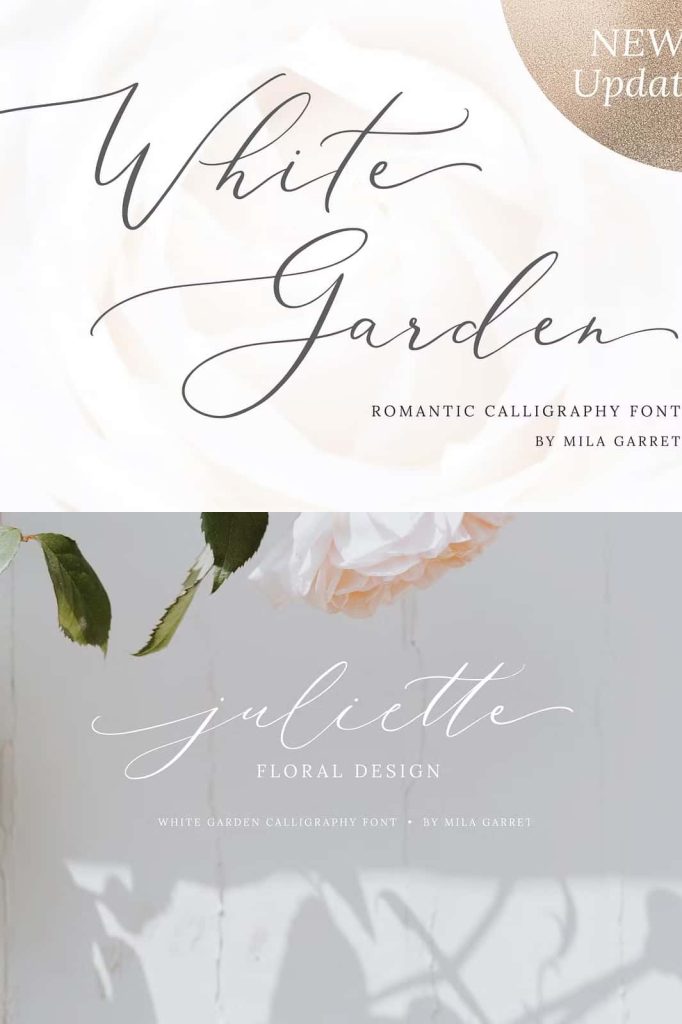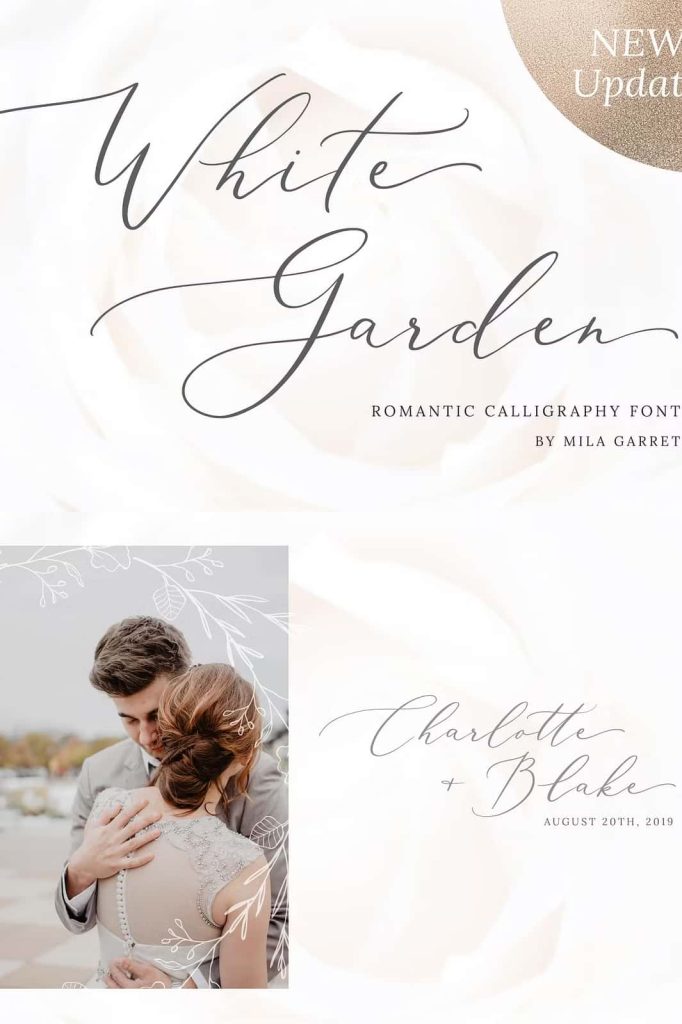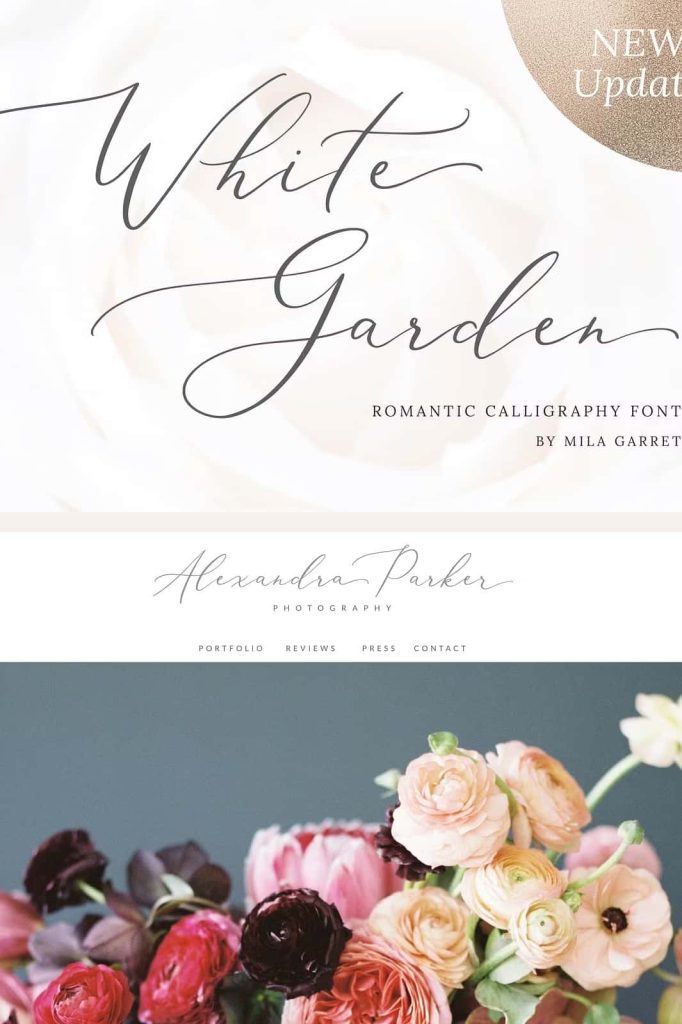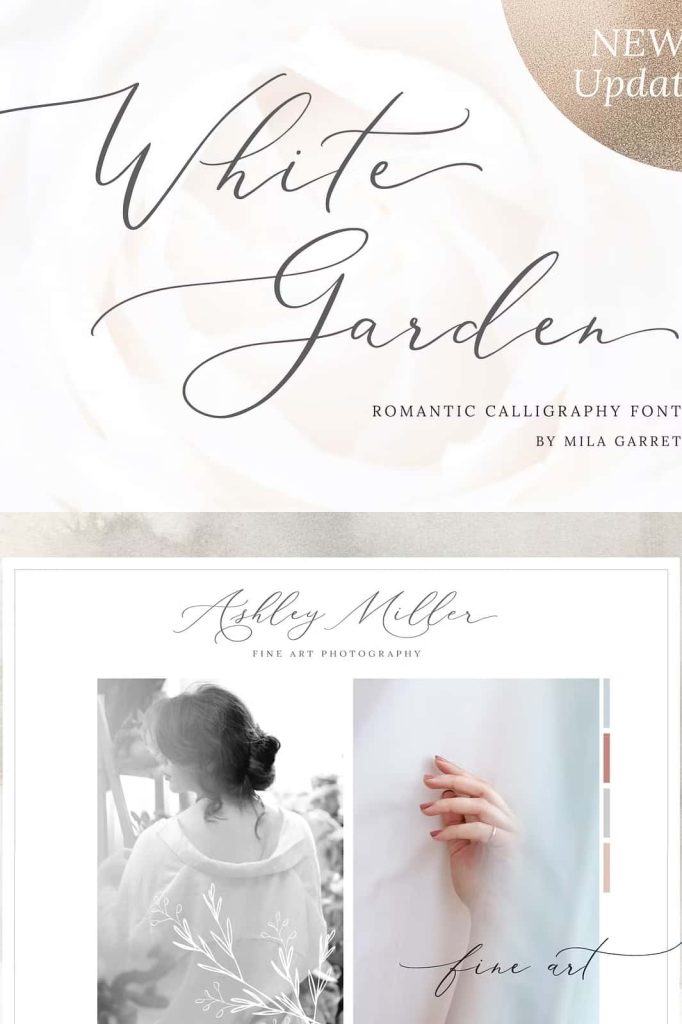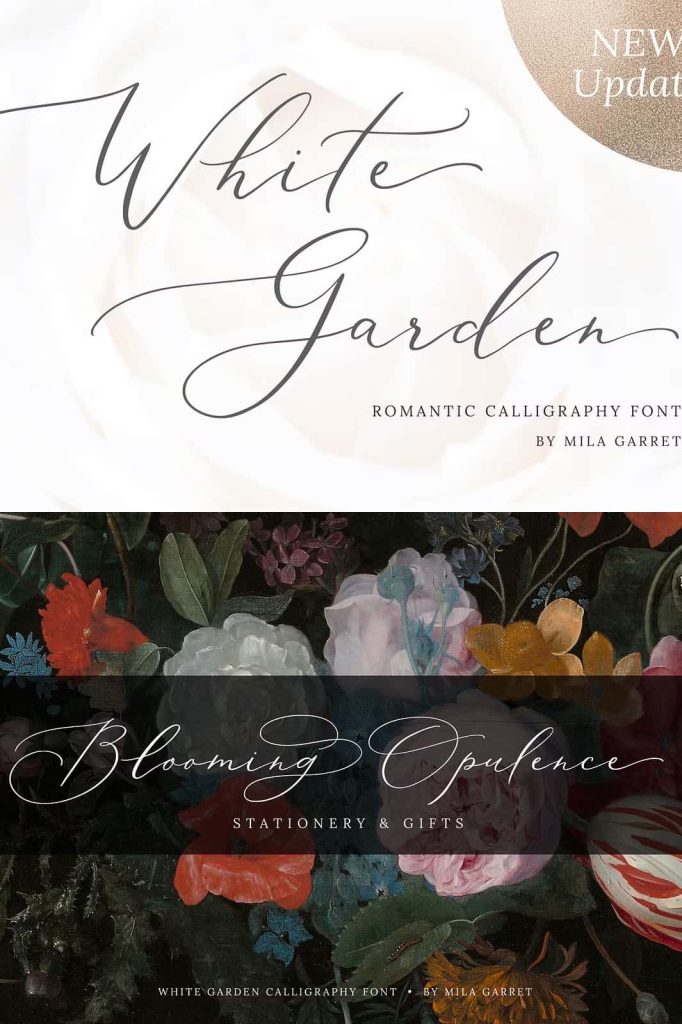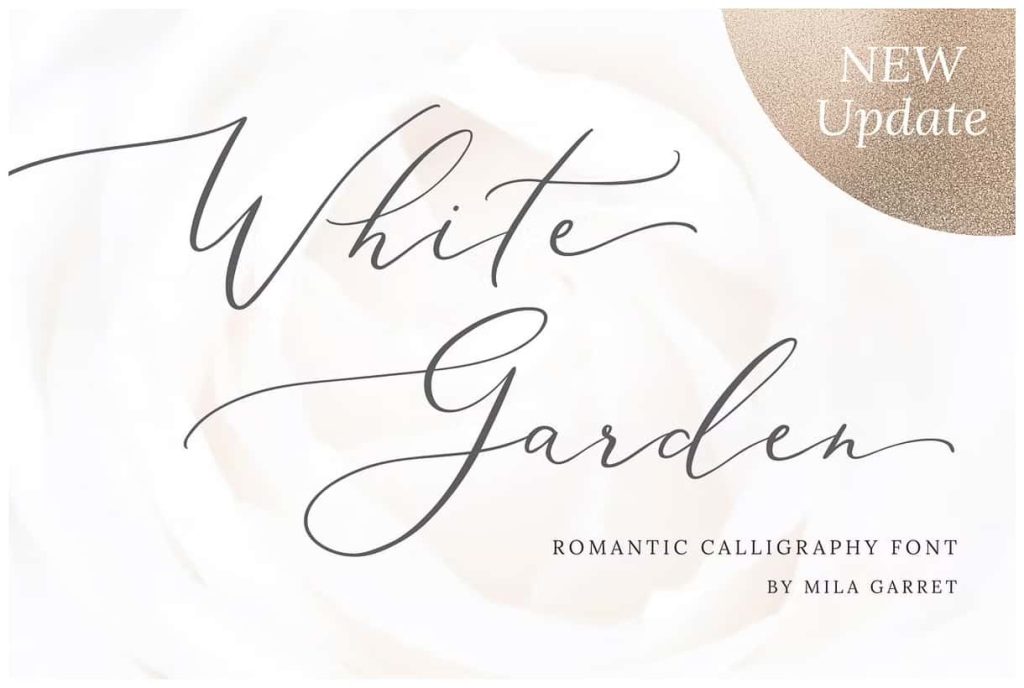
White Garden Calligraphy Logo FontleastedFebruary 24, 2025Fonts Introducing a new beautiful calligraphy font, White Garden! White Garden is perfect for elegant logos, upscale packaging Download